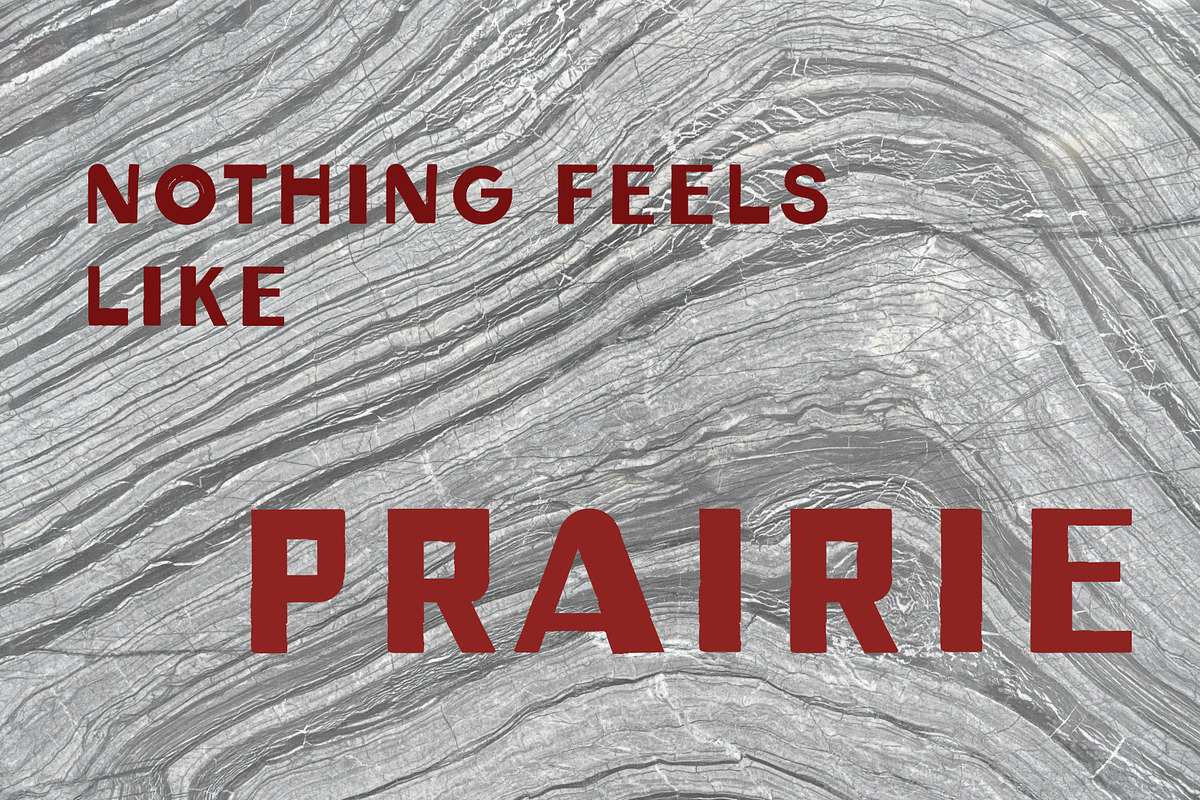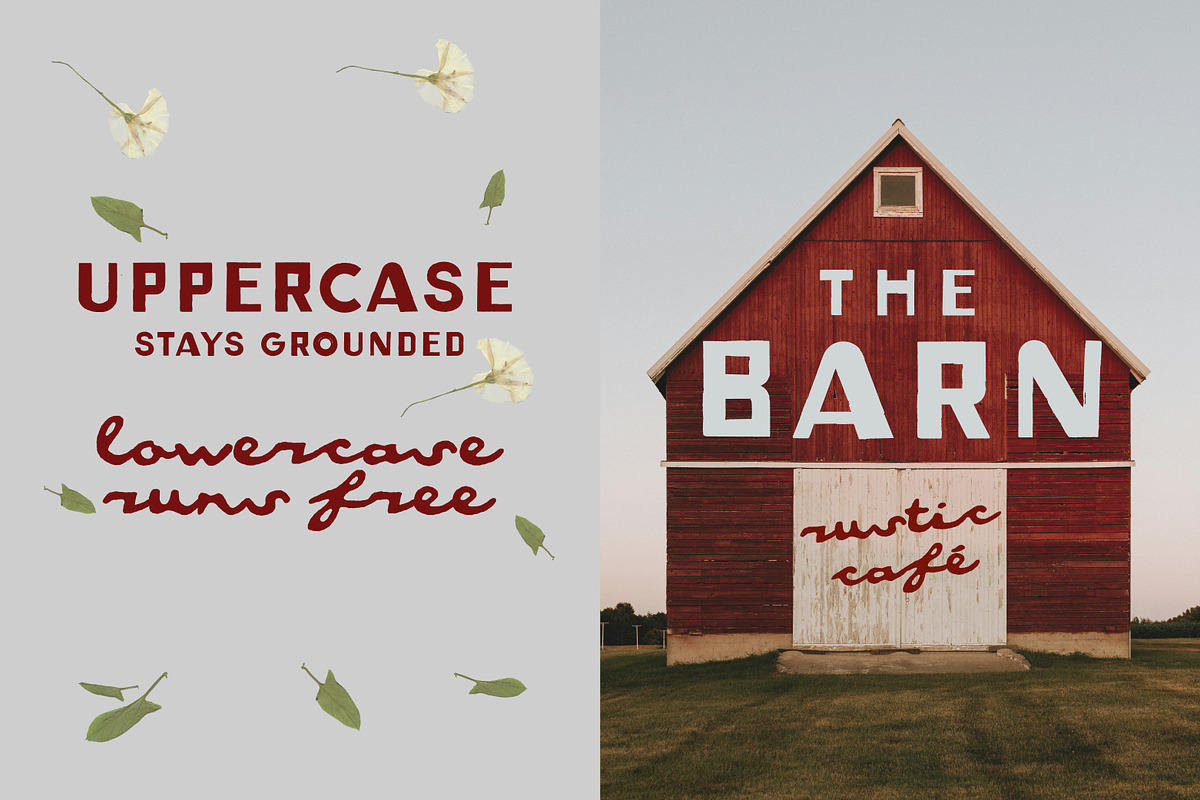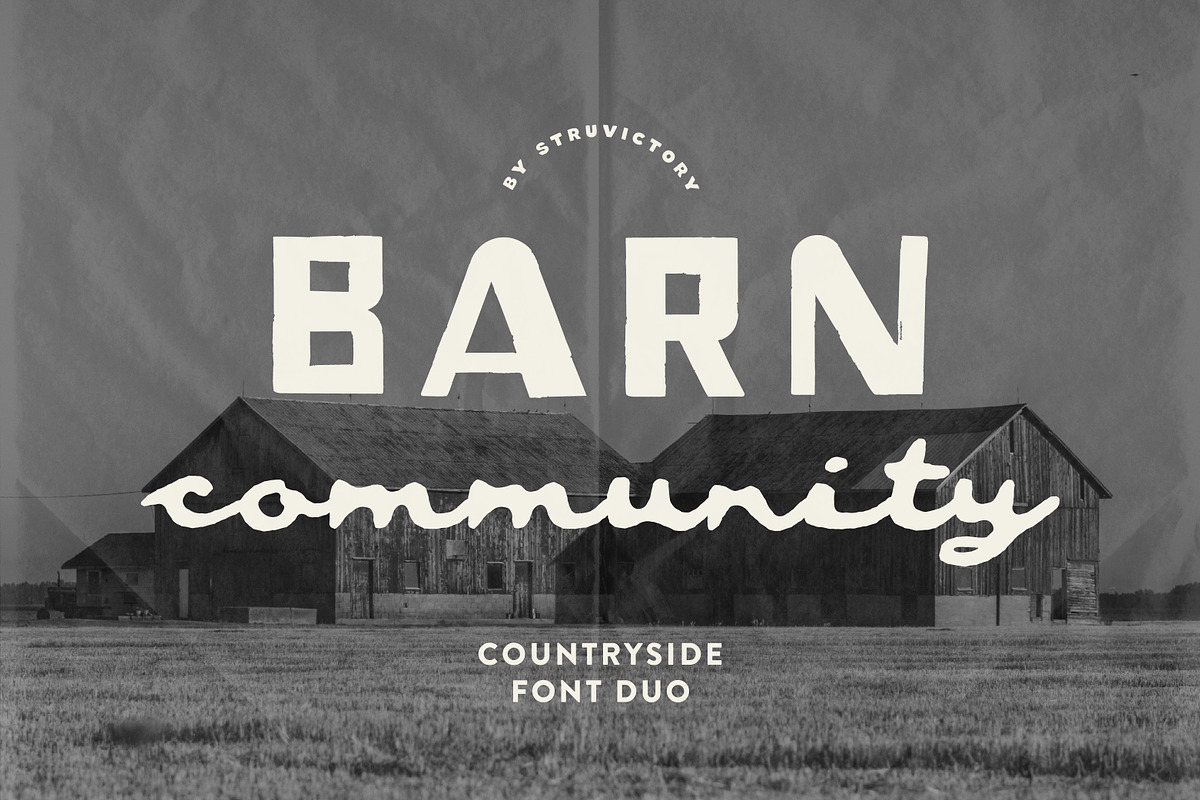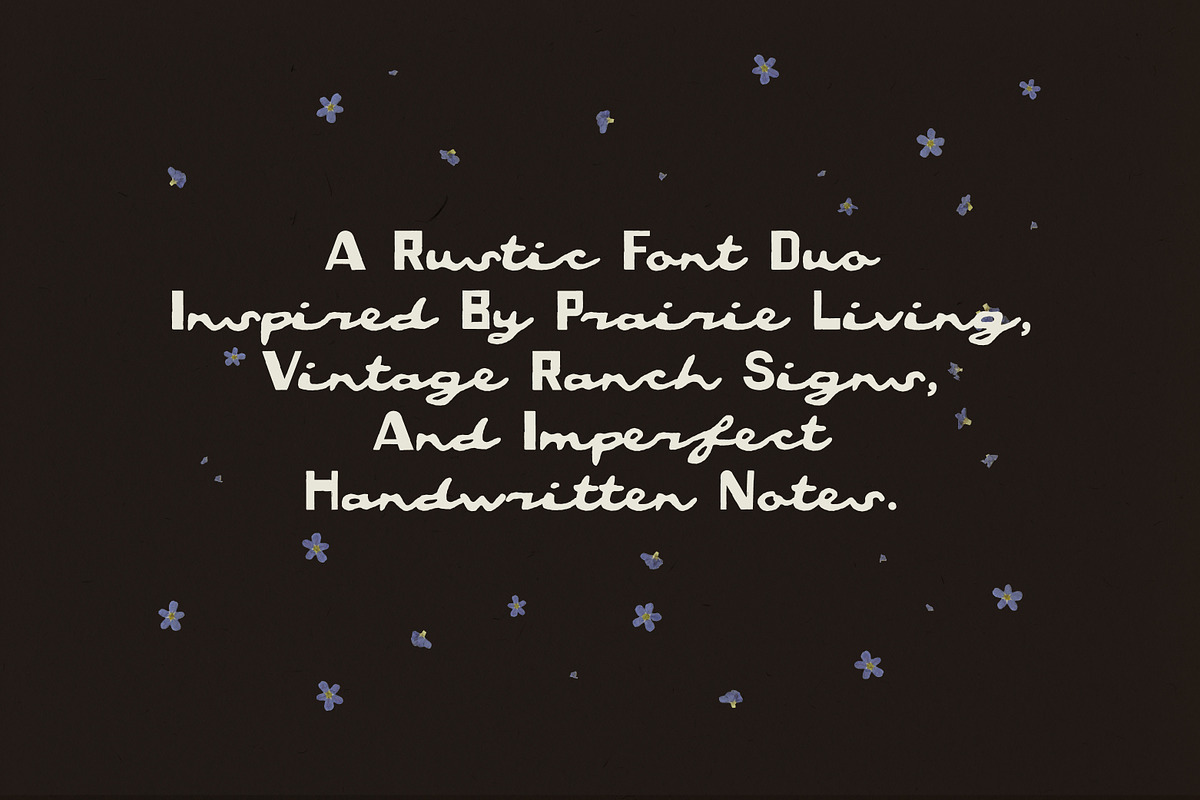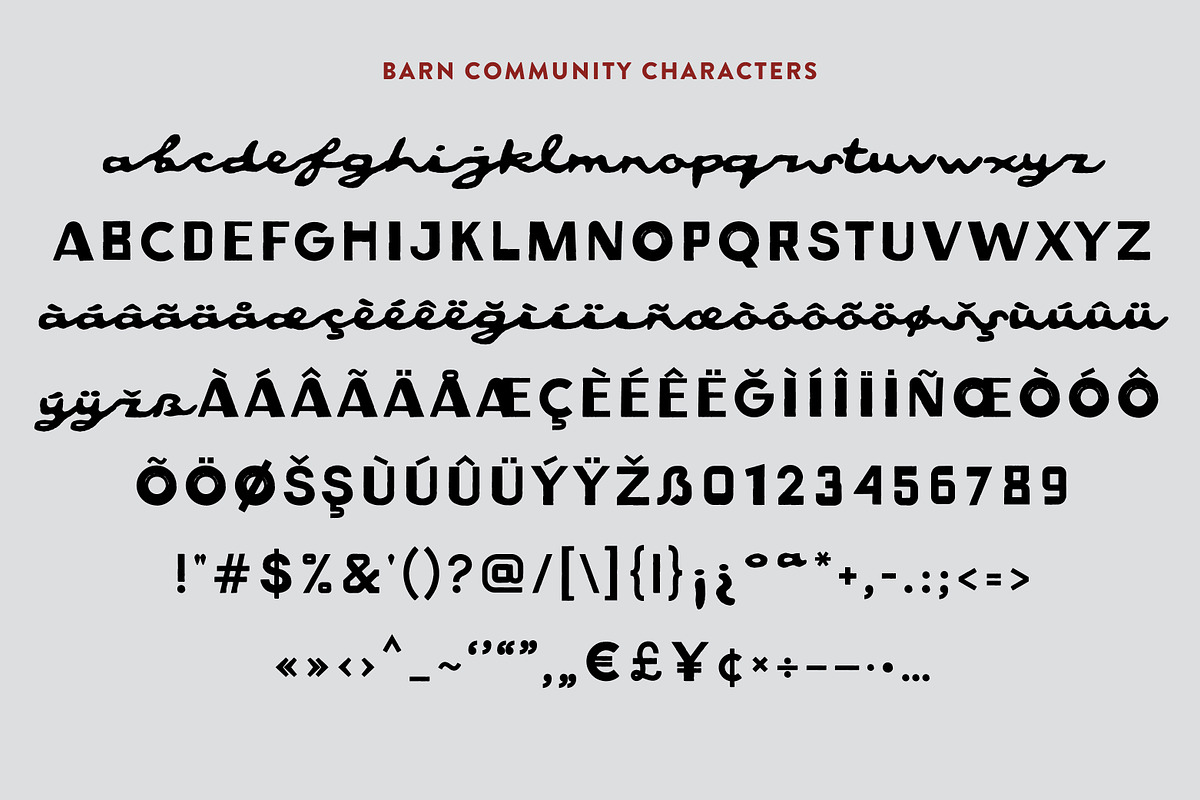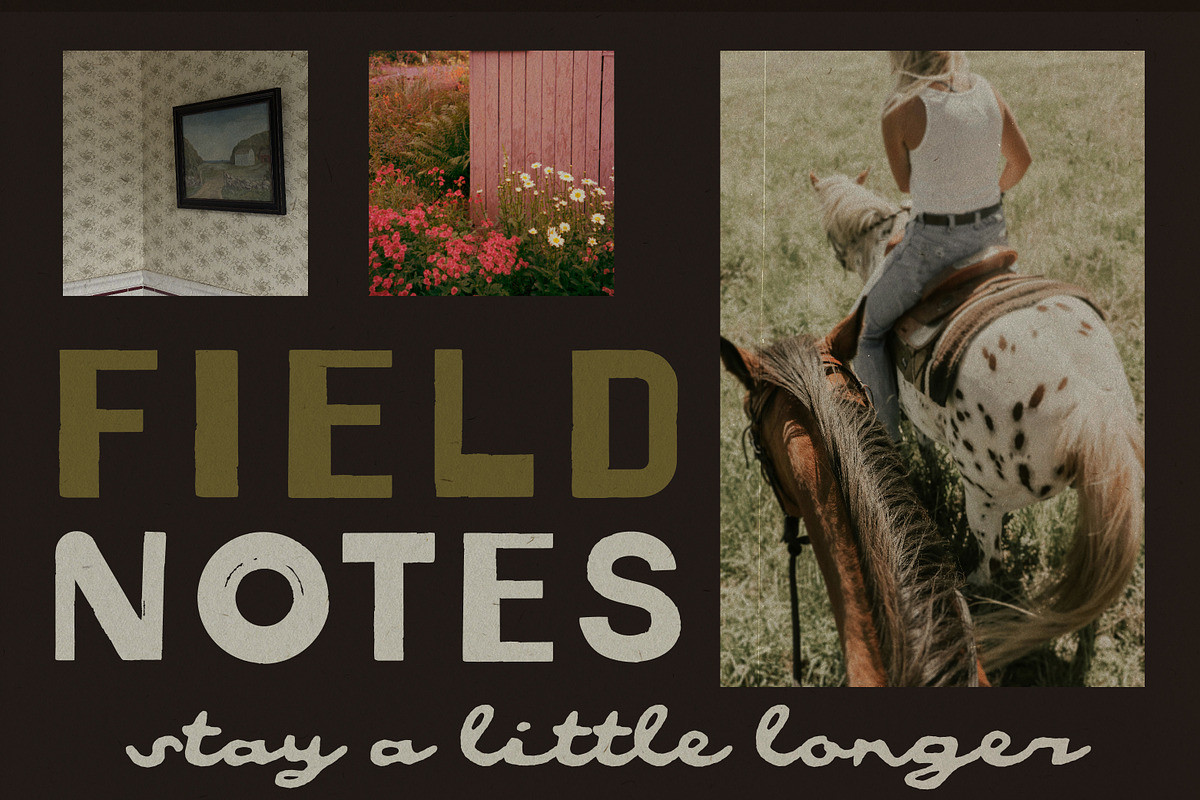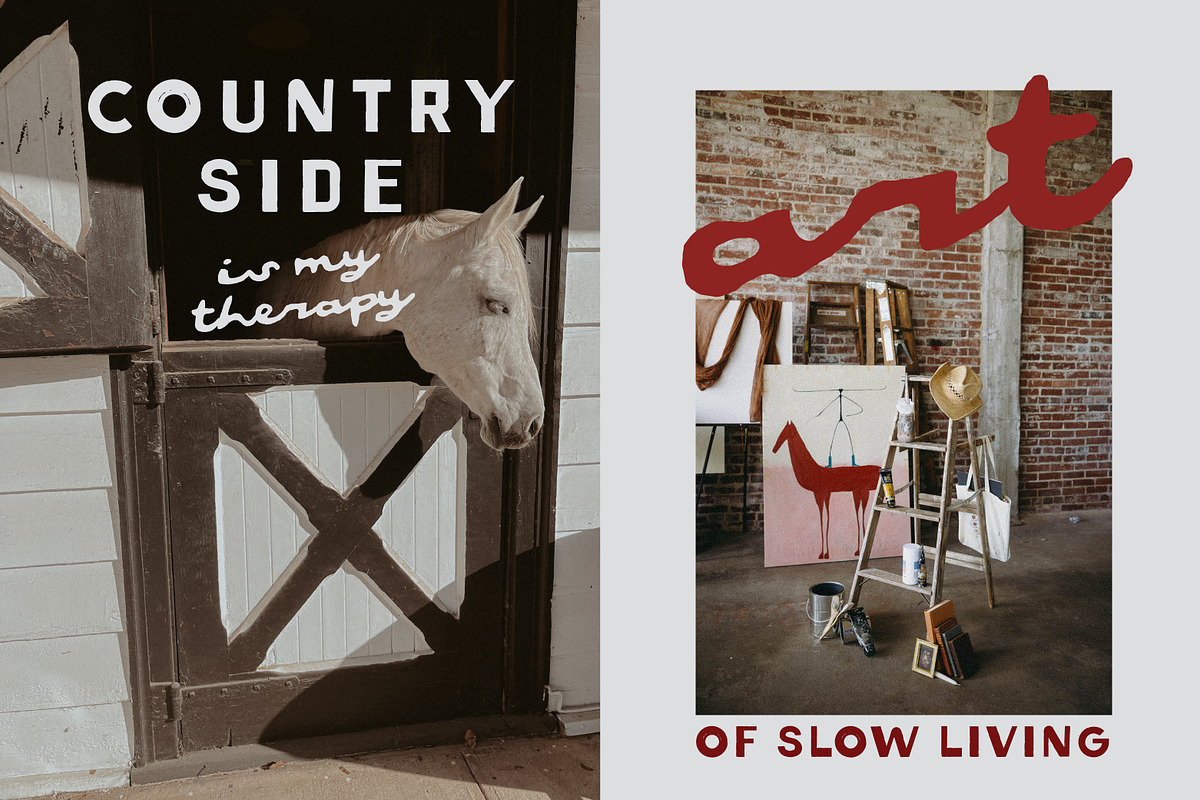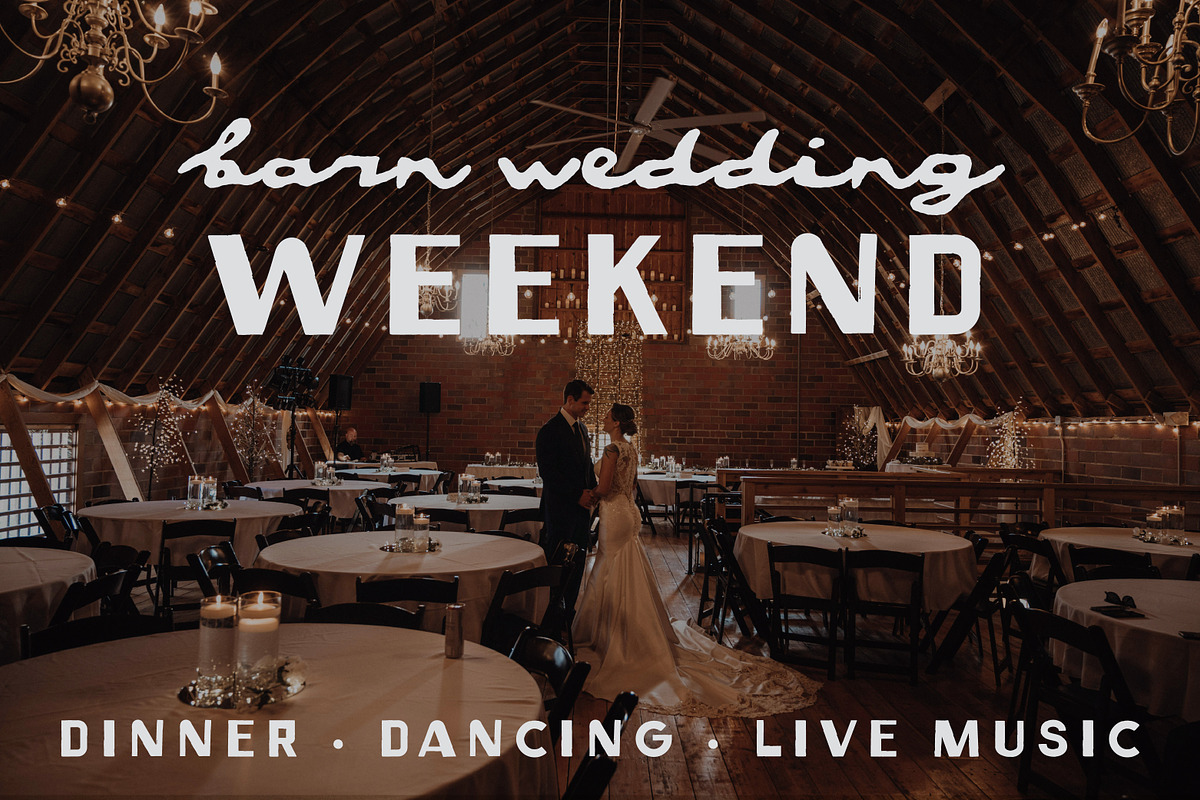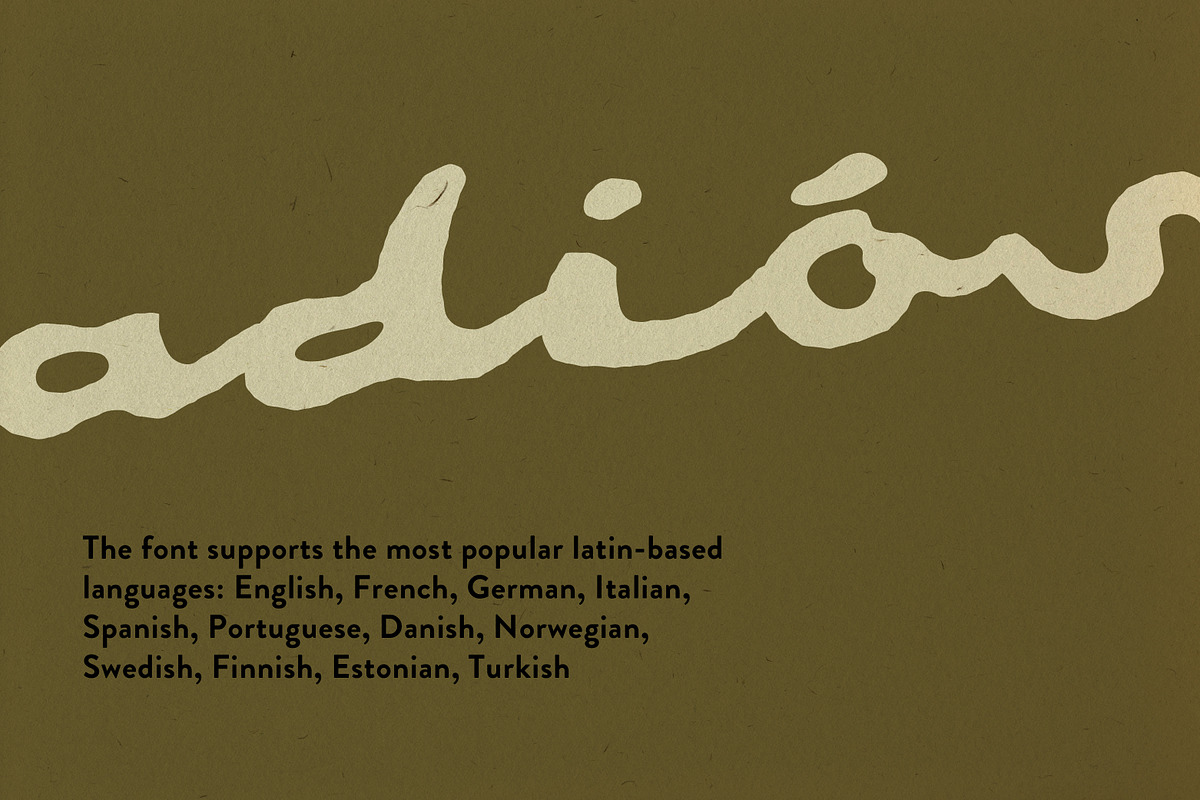
Barn Community Handwritten Duo
Barn Community is a rustic font duo inspired by prairie landscapes, weathered barn signs, roadside cafés, and handwritten country notes. The font combines bold mid-century inspired uppercase letters with a loose handwritten script that feels warm, expressive, and naturally imperfect. Its textured shapes and relaxed rhythm make it perfect for western branding, packaging, apparel, café identities, wedding stationery, posters, social media, and editorial projects that need an authentic handmade feel. Barn Community brings together rugged structure and casual charm in a way that feels nostalgic, grounded, and refreshingly human.
Barn Community Script supports the most popular latin-based languages, you can check the symbol you need by typing a couple of words in the font preview box.